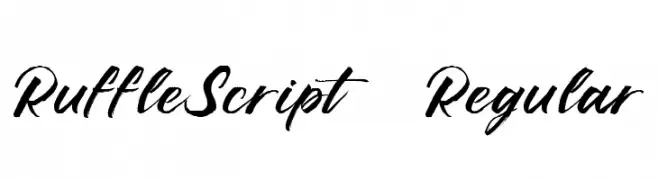
A dynamic script font with a rough, brush-like texture and flowing cursive style.
A dynamic script font with rough, textured strokes and a handwritten feel.